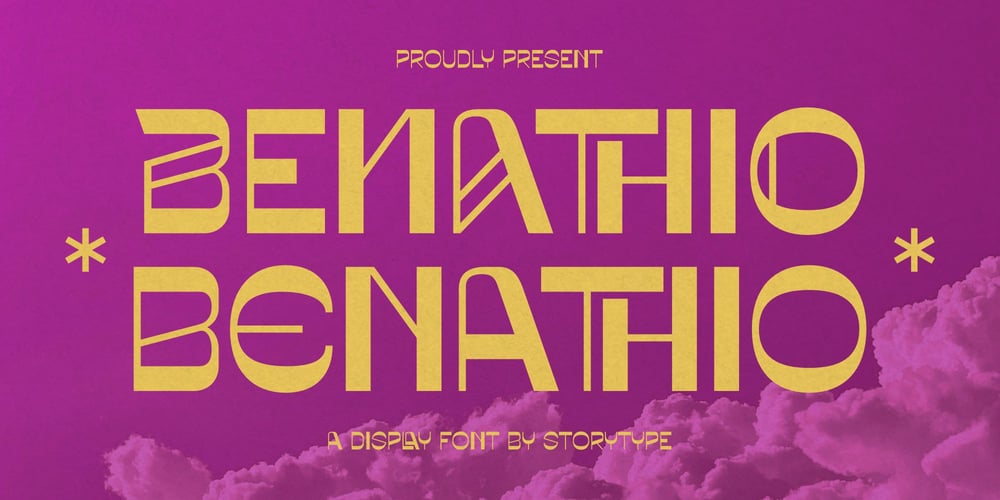
Benathio Font Family was designed by Heru Utama Putra and published by Letterena Studios. Benathio contains 2 styles and family package options. Benathio is a modern display typeface with a unique look and style. It’s perfectly suitable for elegant & luxury logos, book or movie title design, fashion brands, magazines, clothes, lettering, quotes, and so much more.